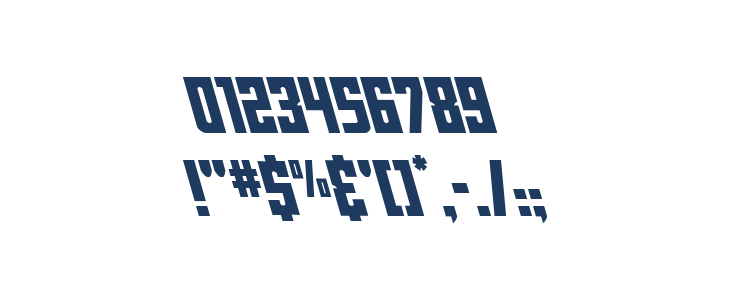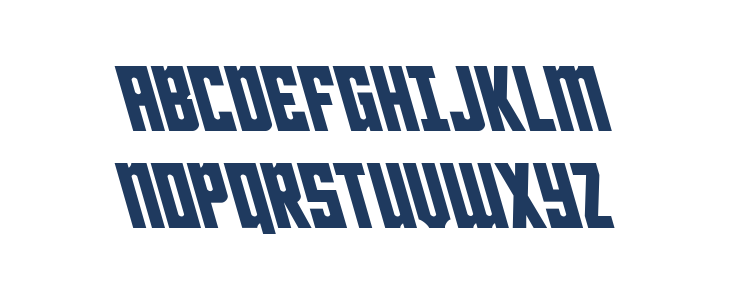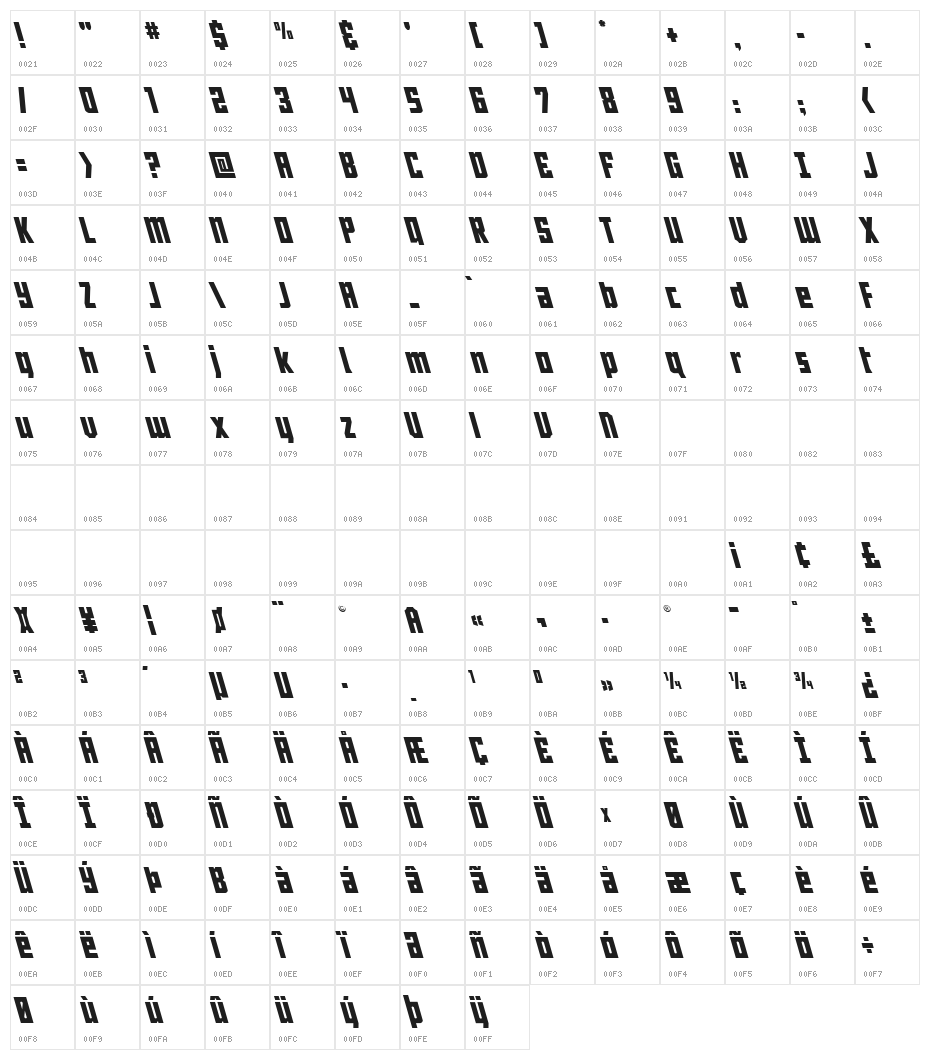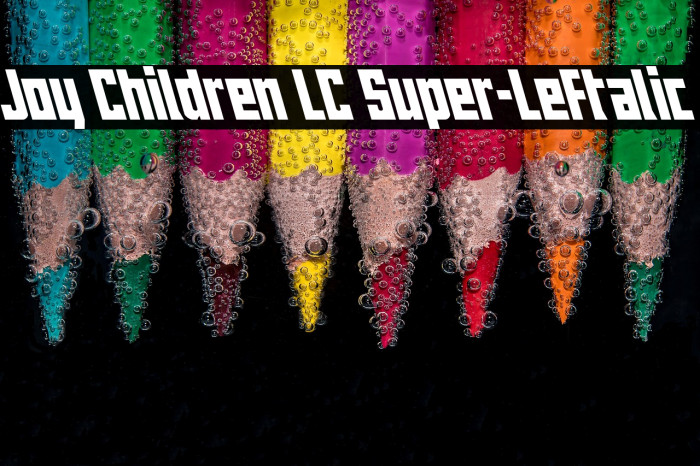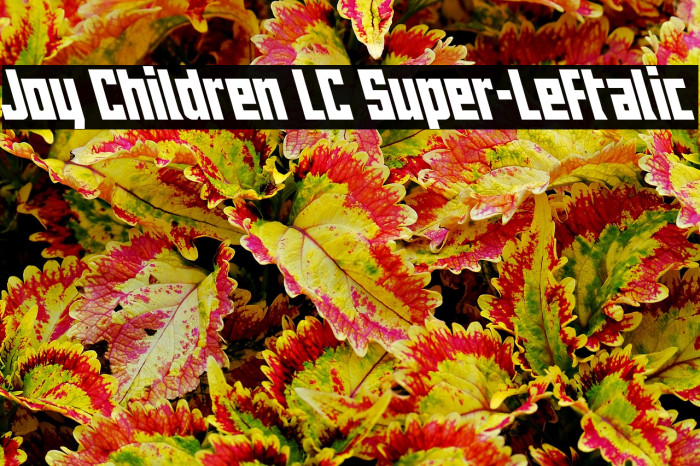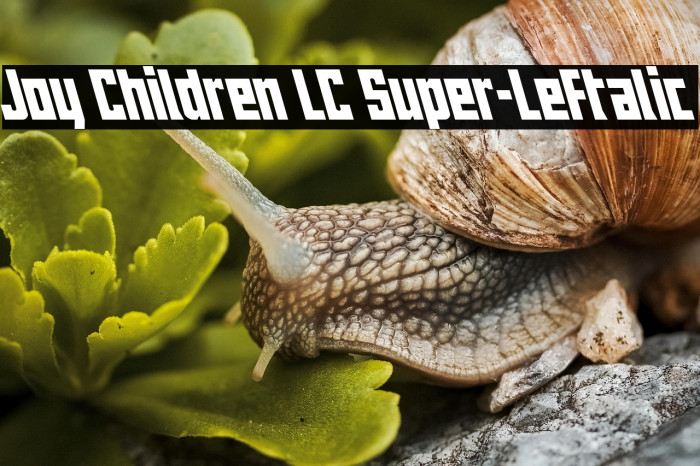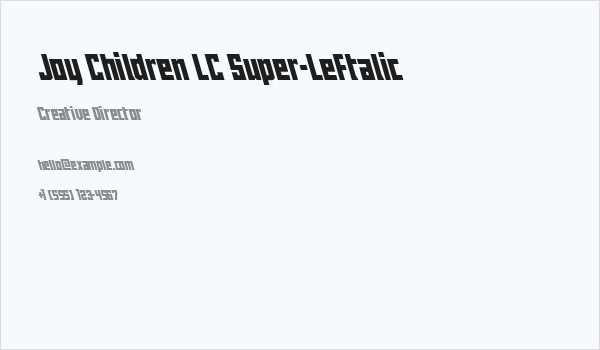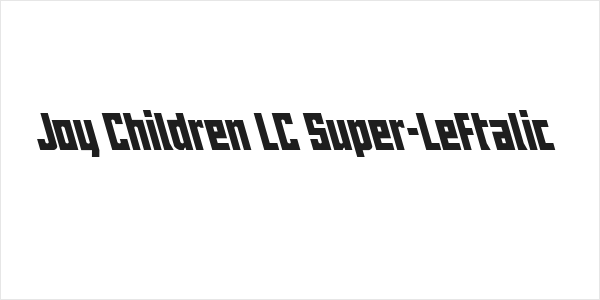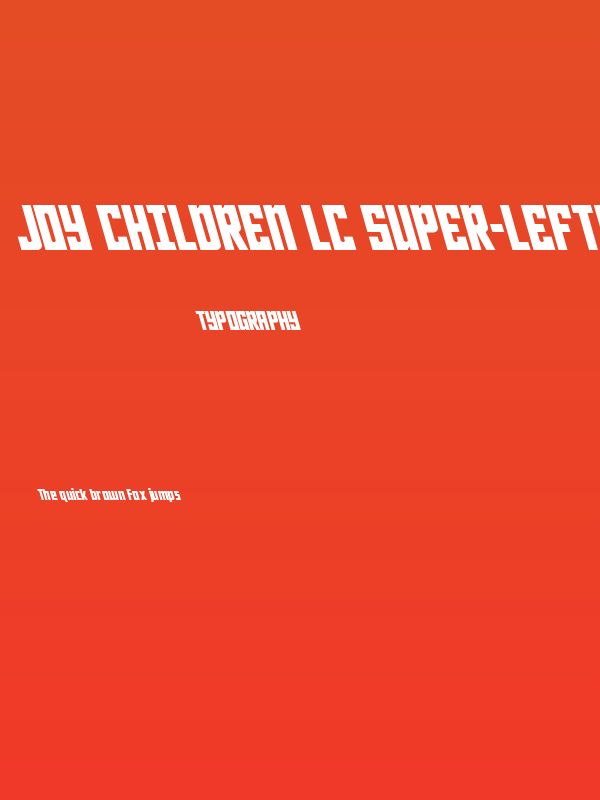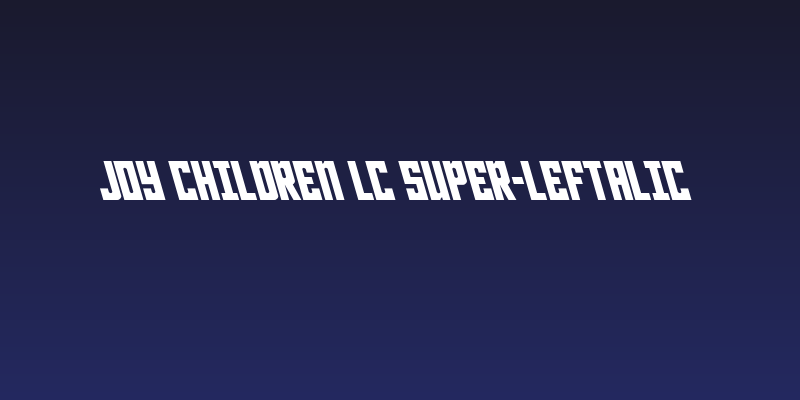
Joy Children LC Super-Leftalic Font
Joy Children LC Super-Leftalic Description
Bold, geometric, and blocky font with a strong, modern appearance. The characters are angular with consistent stroke widths, giving a sturdy and impactful look.
| Overall Style | Modern, Geometric, Bold |
| Use Case | Headlines, Logos, Display Text |